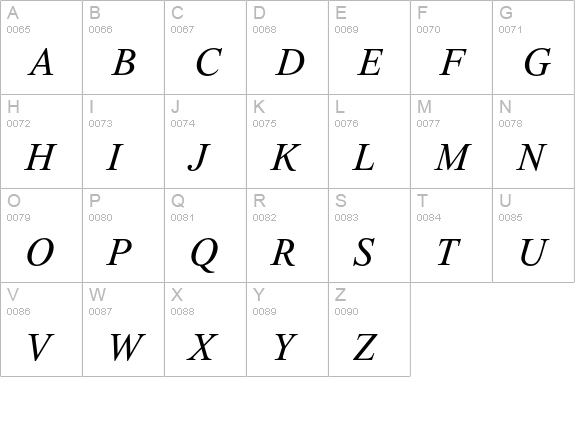
Thorndale AMT Italic Font Details
Thorndale AMT Italic is a distinctive, italic variant in the Thorndale typeface family \xE2\x80\x94 well suited to design and typography projects.
Introducing Thorndale AMT Italic font, a captivating typeface that effortlessly combines elegance and sophistication. With its sleek and stylish design, this font is perfect for adding a touch of refined beauty to any project. Thorndale AMT Italic font features sleek and delicate letterforms that gracefully flow across the page, exuding an air of modernity and class. Its unique italic style adds a touch of flair, making it perfect for creating eye-catching headlines, branding materials, invitations, and more. What sets Thorndale AMT Italic font apart is not just its stunning aesthetics, but also its versatility. Whether you're designing a wedding invitation, a corporate logo, or a magazine spread, this font adapts effortlessly to any context, always delivering a professional and polished look. And the best part? Thorndale AMT Italic font is freely available to download at FontsMarket.com. This means that you can access this extraordinary font without any cost, making it an excellent choice for designers on a budget or those who simply appreciate the value of a high-quality, free font. So why wait? Enhance your design projects with the captivating beauty of Thorndale AMT Italic font. Download it for free at FontsMarket.com and let your creativity soar.